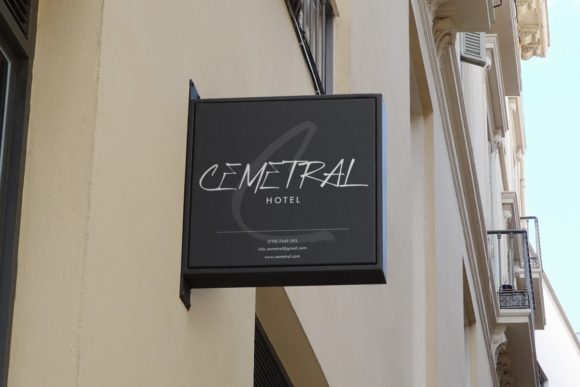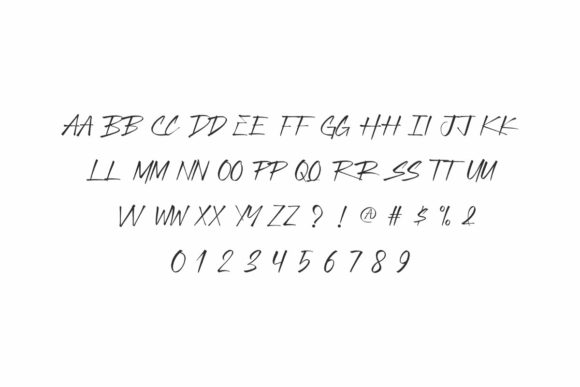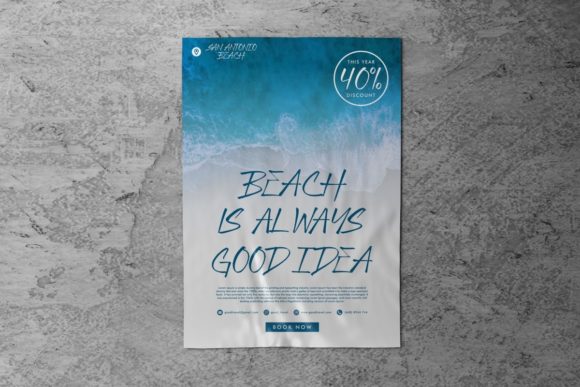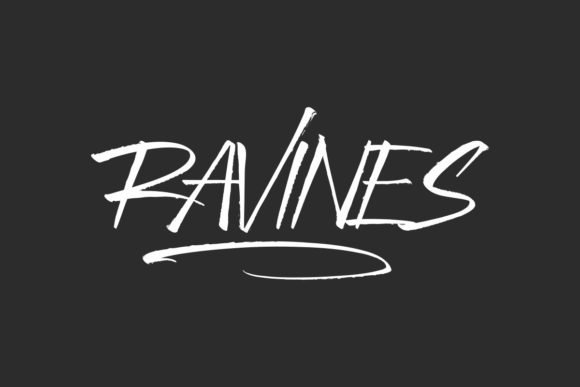
Introduction to Ravines Font
Ravines is a unique brushed display font, defined by a rough edge effect.
Ravines will be fit for headlines, advertising, product, packaging, promotion, tittles and more This font is PUA encoded which means you can access all of the glyphs and swashes with ease.